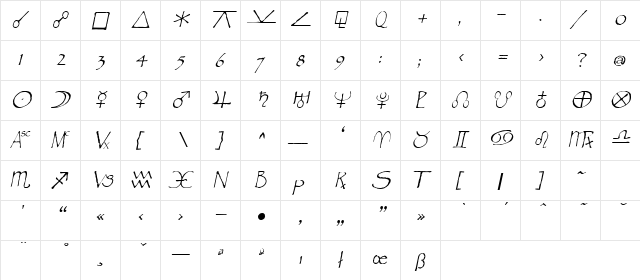
Widget Italic Font Preview
Widget Italic
Widget Italic Font Details
| Designer | Jason Davies |
Design Context for Widget Typeface
Widget takes a measured approach to typography — its balanced proportions and neutral character make it a reliable workhorse for both digital and print work. The slanted form adds forward momentum and visual energy.